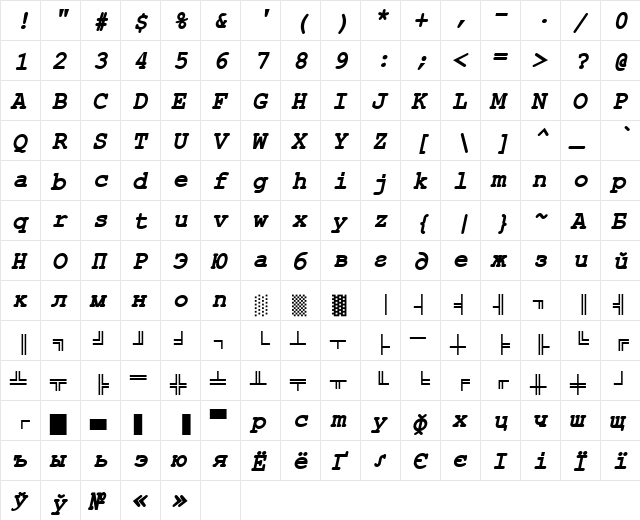
ER Kurier 866 Bold Italic
Design Context for ER Kurier 866 Typeface
ER Kurier 866 is a composed and adaptable typeface that performs quietly and consistently across a wide range of design contexts. The slanted form adds forward momentum and visual energy. The heavy weight commands attention and anchors typographic hierarchies.
Pro Tip: Try ER Kurier 866 for annotation and caption copy alongside an upright companion — the contrast in angle creates a dynamic but ordered typographic system.